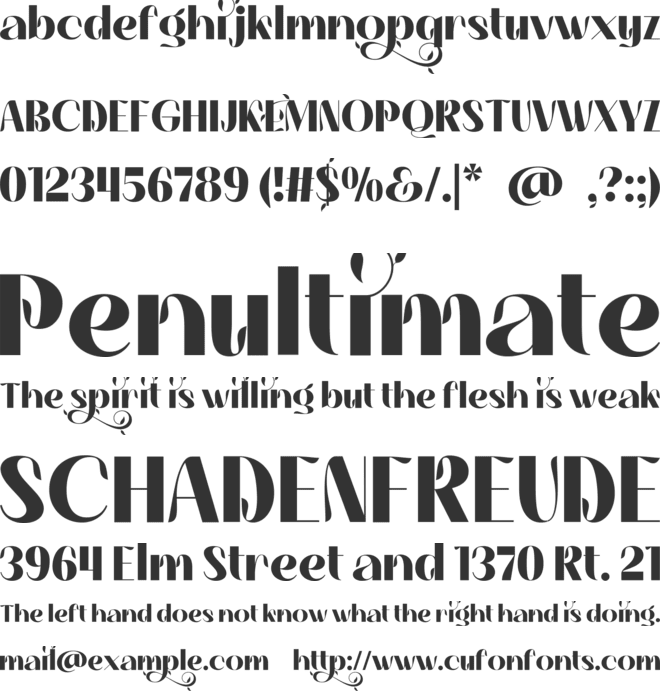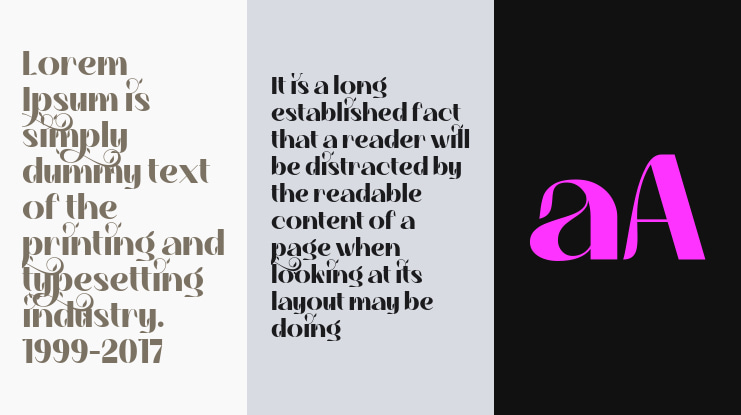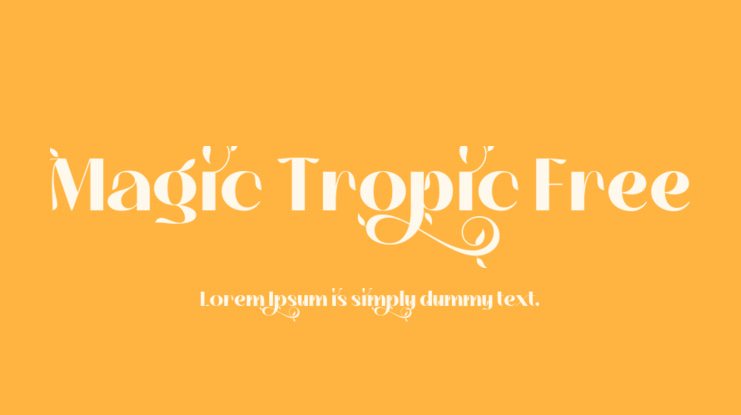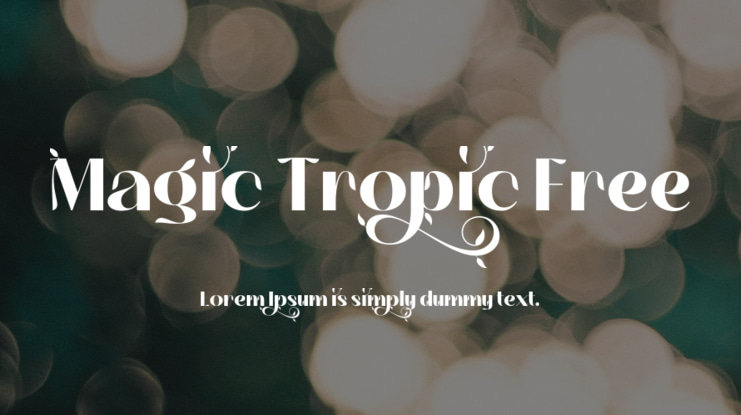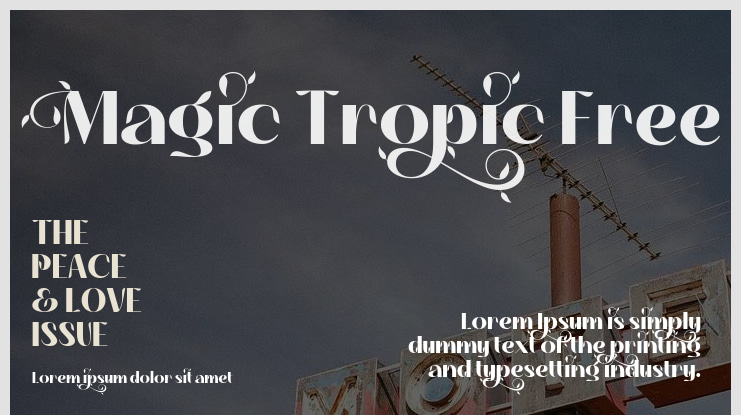
Magic Tropic Free Font
Magic Tropic is a one-of-a-kind display font that takes inspiration from the elegant shapes of tropical plants. Its artistic design exudes a natural and exotic vibe, making it an ideal choice for a variety of design projects seeking a fresh and organic look.